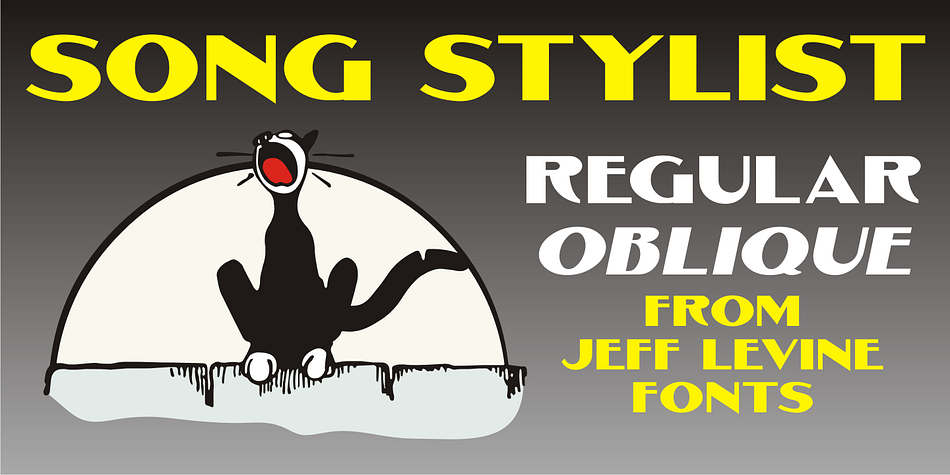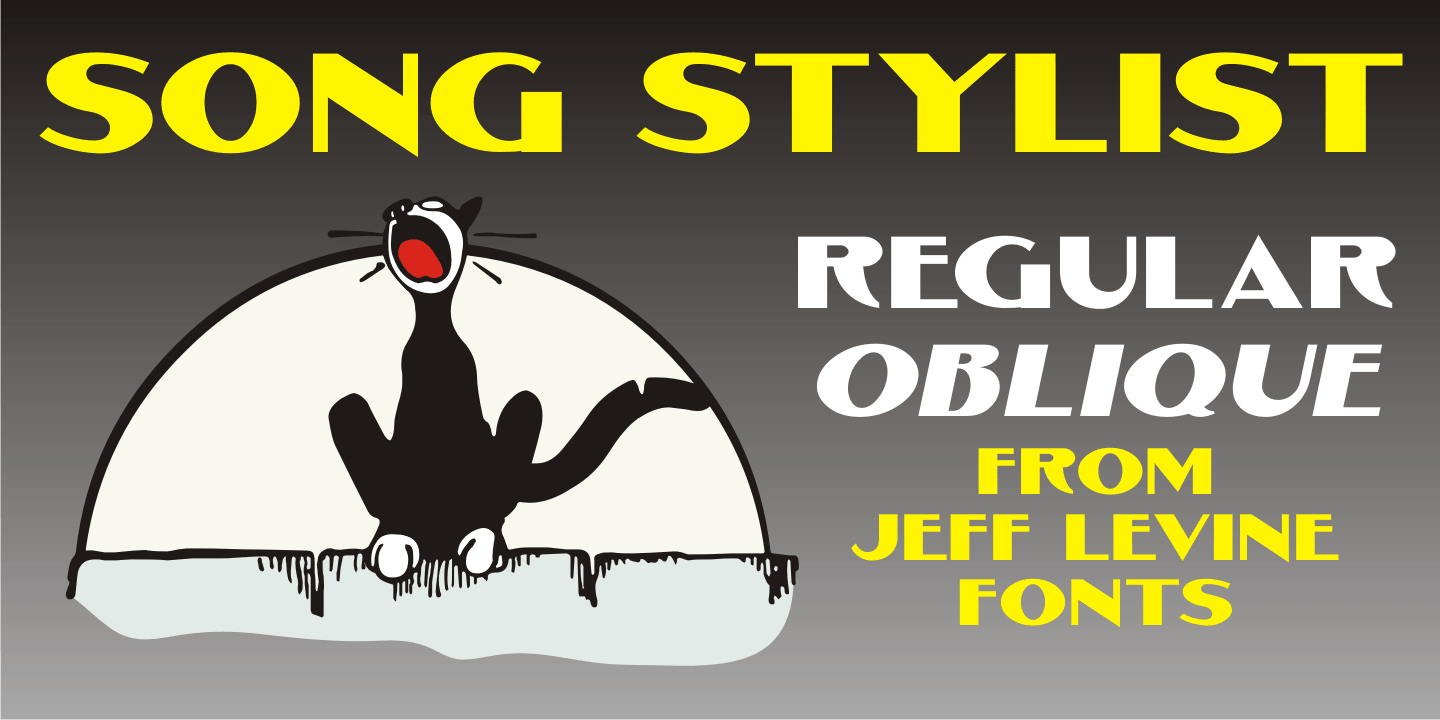
Designed by Jeff Levine, Song Stylist JNL is a art deco and art nouveau font family. This typeface has two styles and was published by Jeff Levine Fonts.
The 1907 novelty song “Since Arrah Wanna Married Barney Carney” (about an Irishman taking an Indian maiden as his bride) had its title hand-lettered in a sans serif style that reflected both the Art Nouveau flavor of the time and a hint of what was to come during the Art Deco movement.